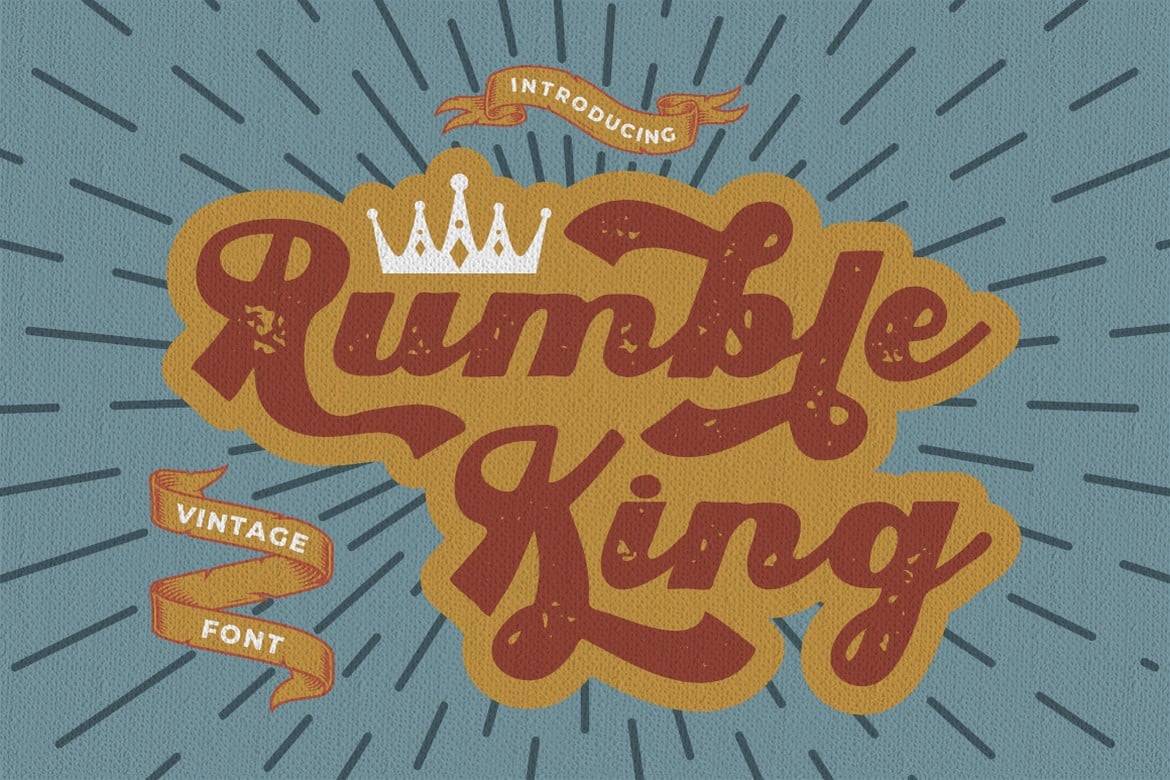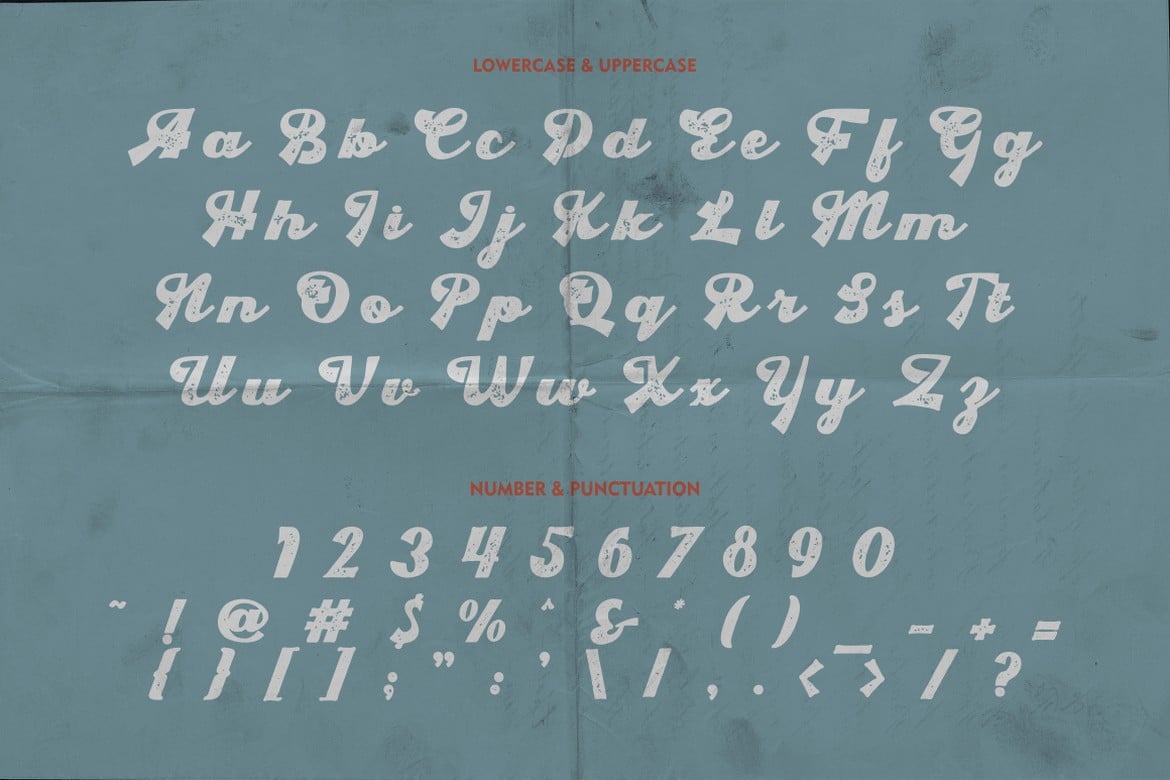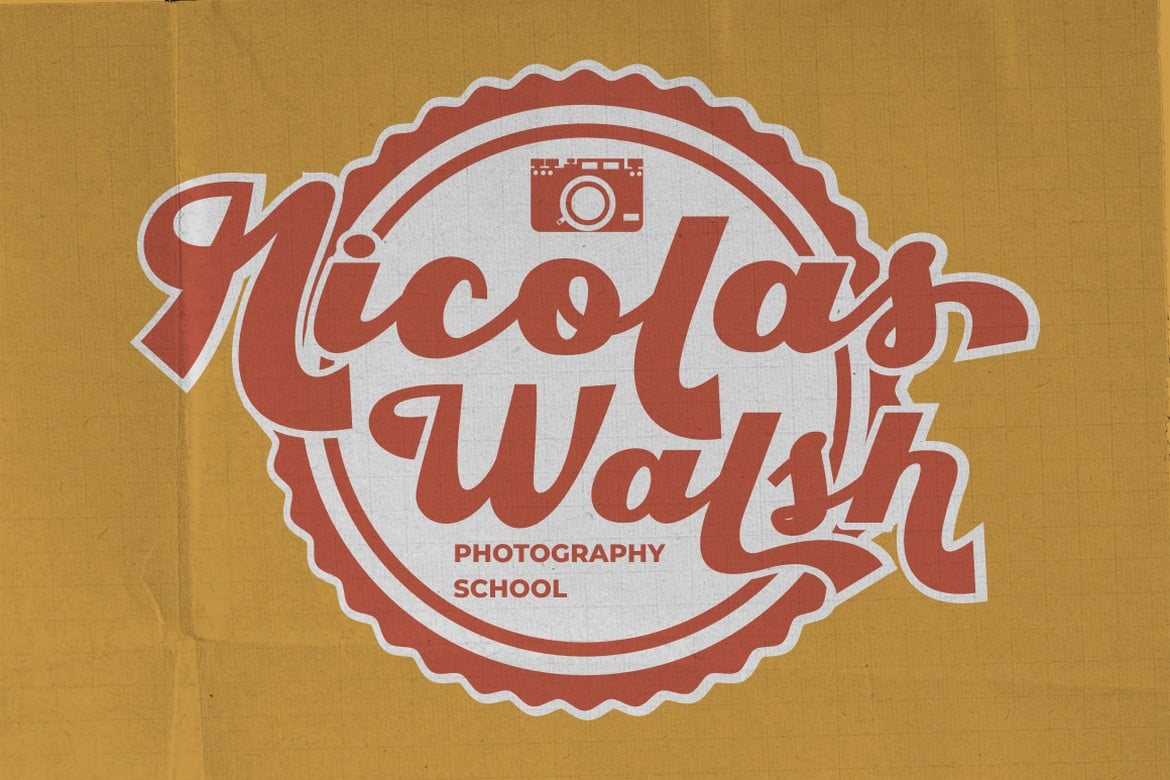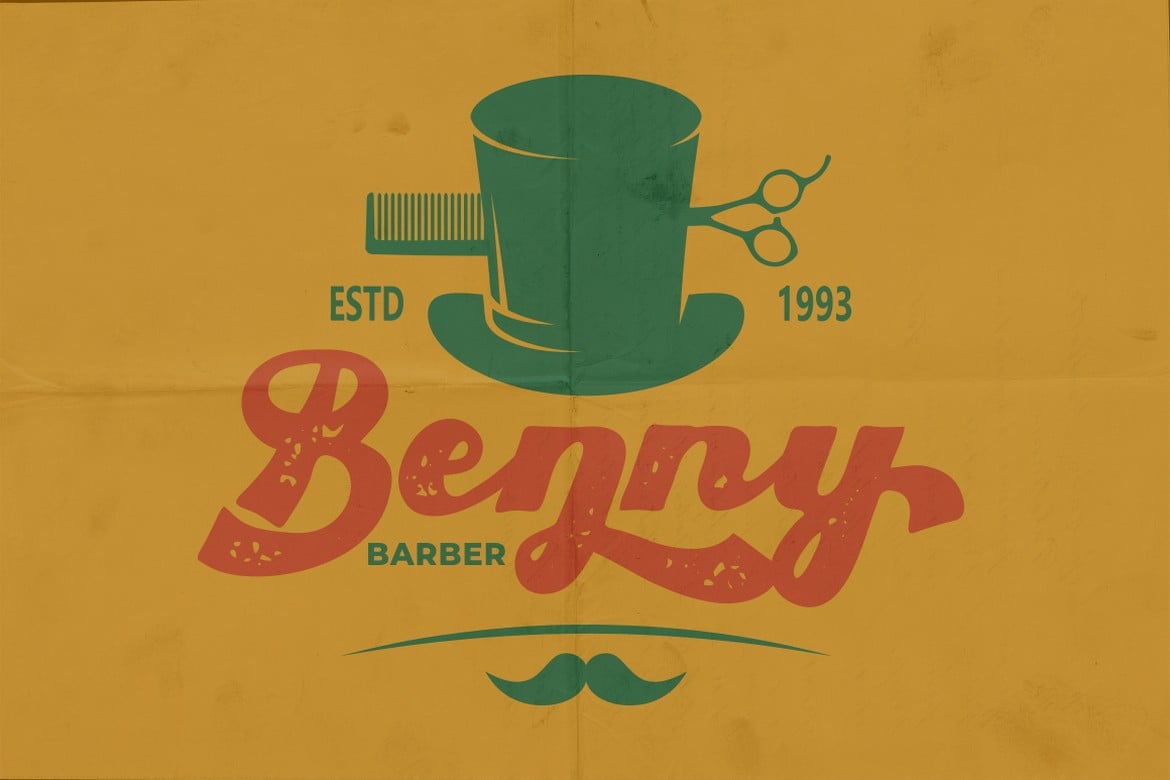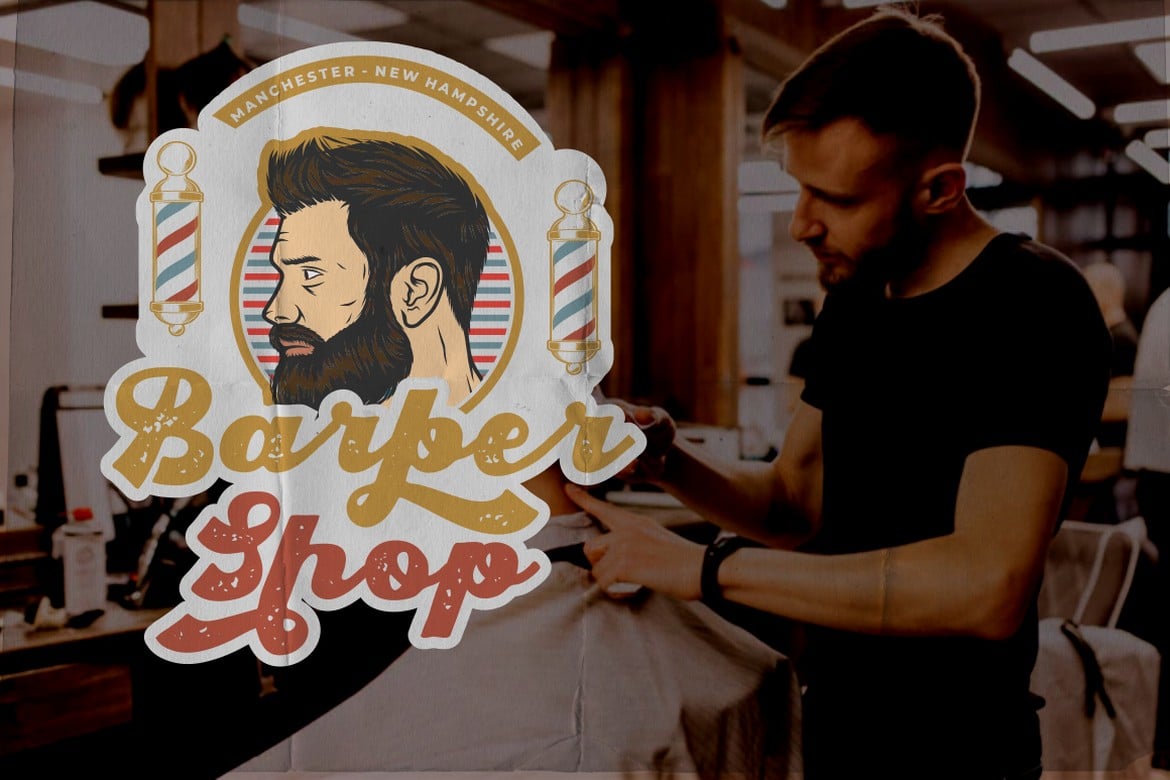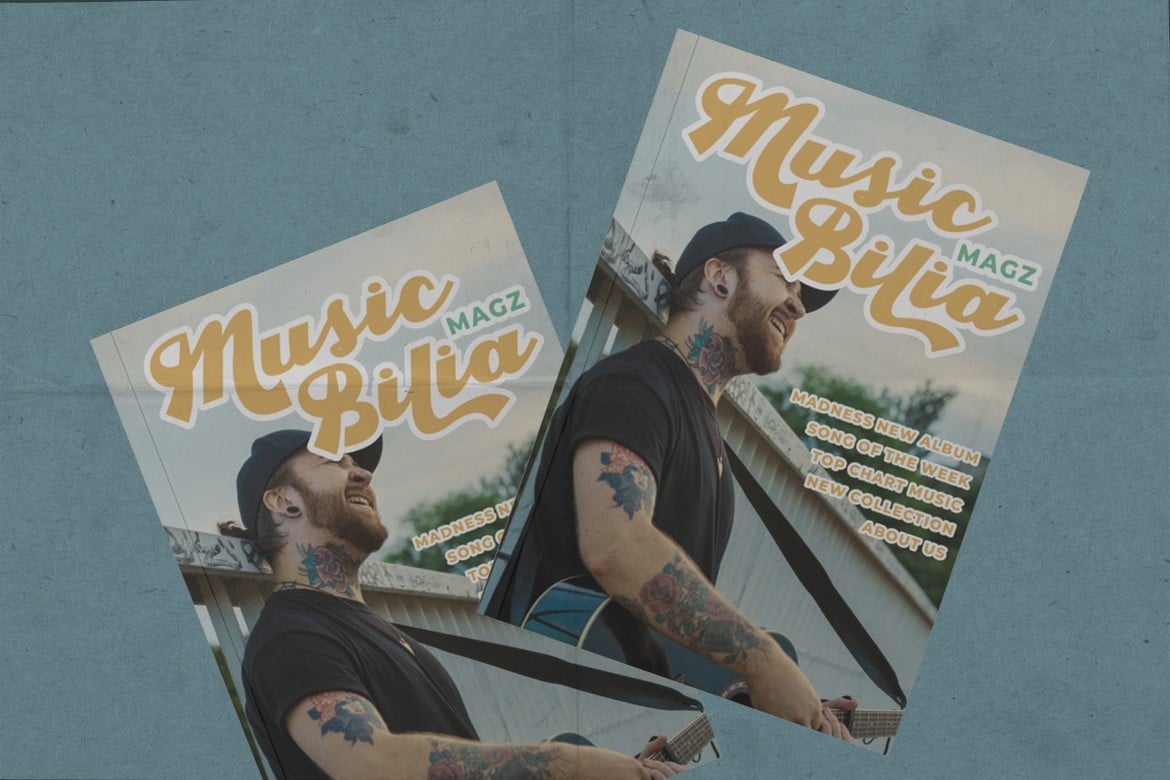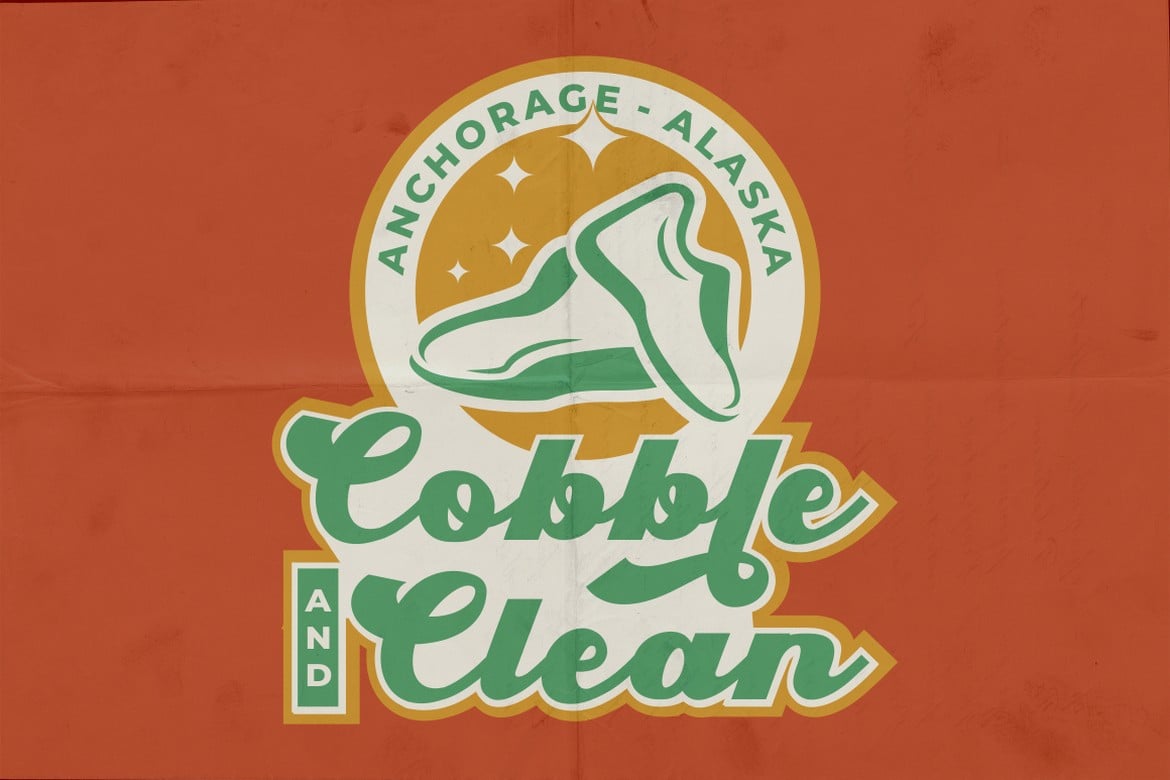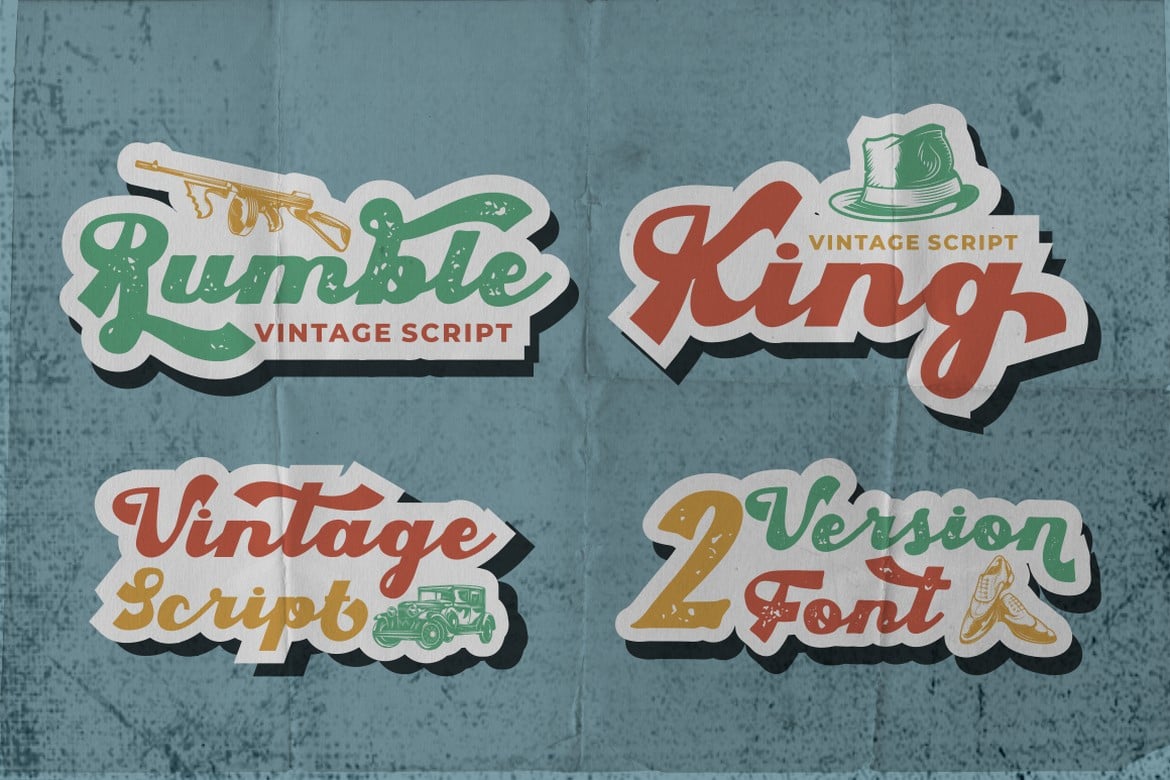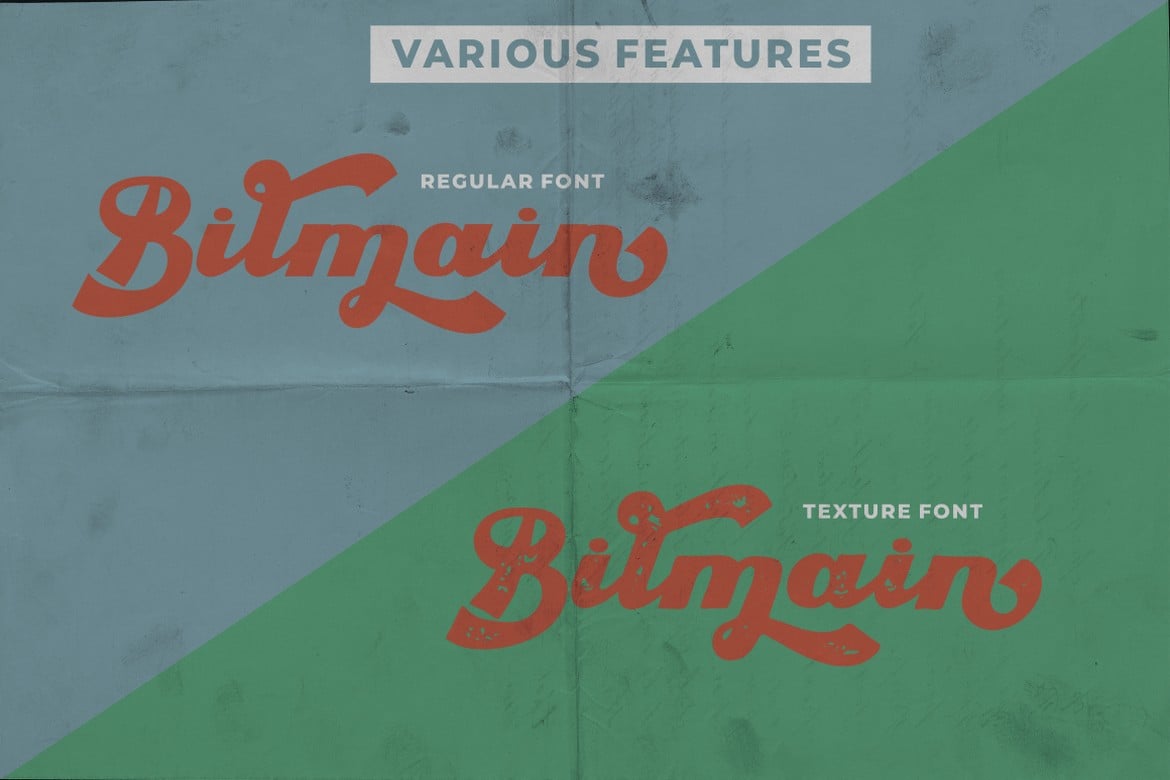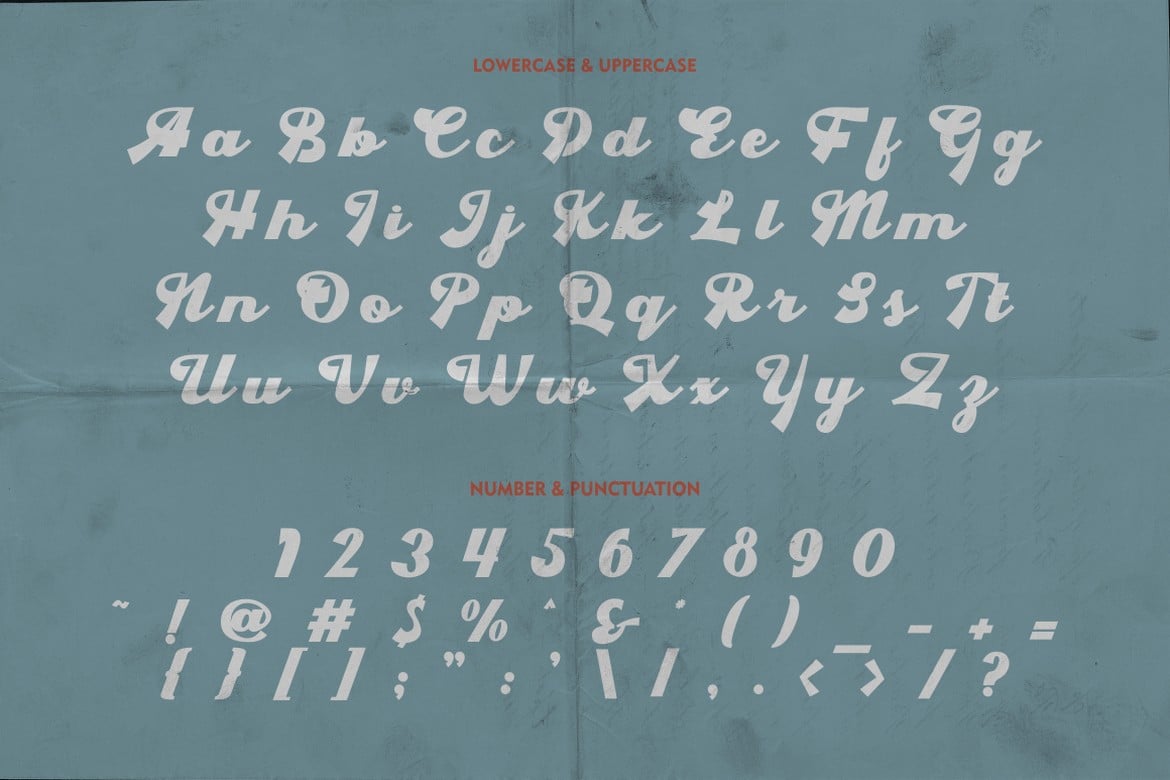
Rumble King – Vintage Script Font
Rumble King is a vintage script font. As the name suggests, Rumble King is inspired by classic poster or vintage magazine. Besides that, I also combine it with a script style and it’s a little irregular in its shape style. I strengthen the vintage/retro impression with the character ligatures, there are 140 ligatures in Rumble King. But if you want to use Rumble King Font with a neater impression, you can disable this ligature feature.
Rumble King is perfect for projects with vintage/retro and classic themes. But Rumble King is also suitable for logos, branding, greeting cards, invitation cards, advertisements, titles, headlines, book titles, stickers, packaging, quotes, posters, billboards and others.
Rumble King is also support multi language.